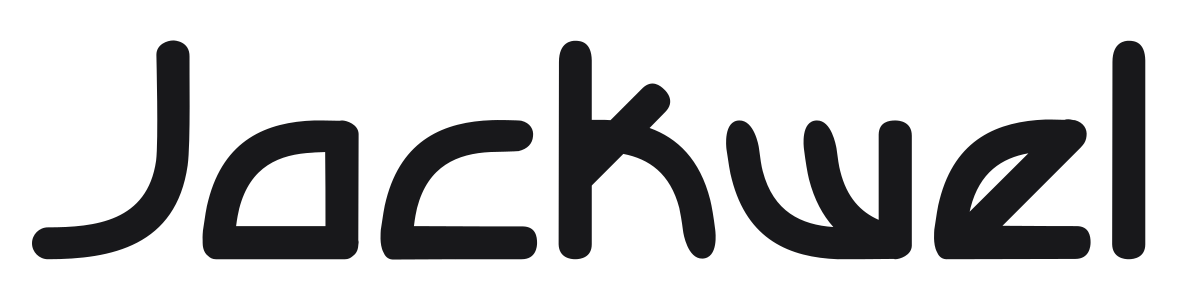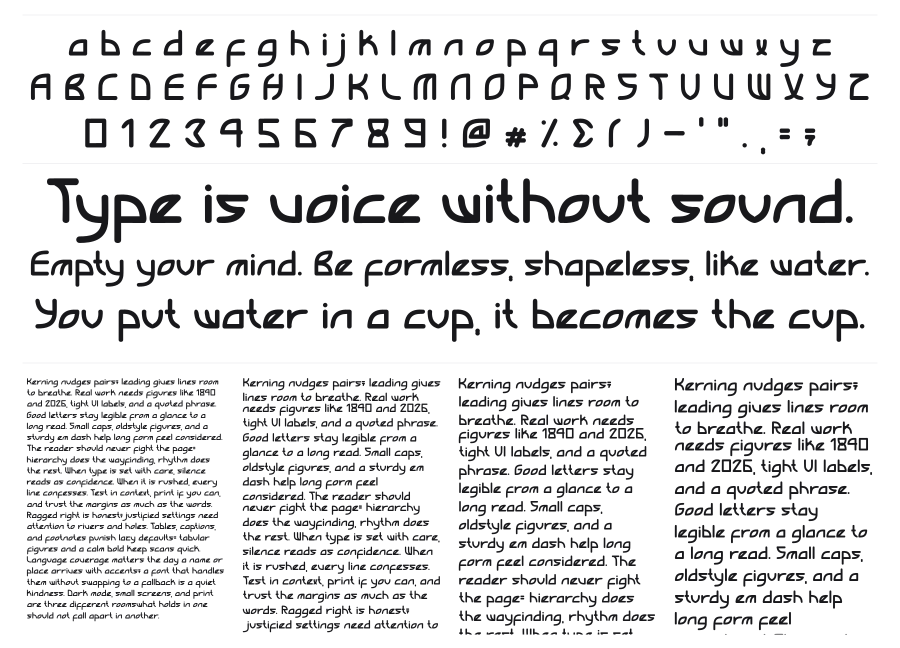
Jackwel
Jackwel is a bold rounded sans with thick, cushioned strokes and soft terminals that give it a distinctly friendly, modern feel. The wide proportions and large counters keep it open and readable at headline sizes. It sits comfortably between geometric rigidity and organic warmth, making it useful for branding that wants to feel approachable without being childish.